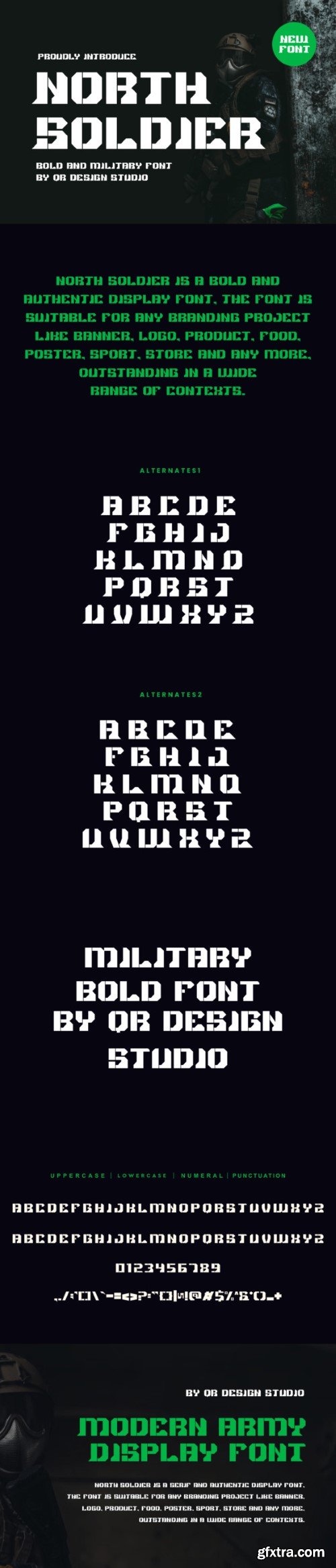
北方士兵字体
North Soldier Font
North Soldier is a bold and dynamic display font that stands tall with confidence. Inspired by rugged strength and modern aesthetics, this typeface delivers a commanding presence. Perfect for headlines, banners, and impactful designs, North Soldier leads the visual charge with its bold strokes and contemporary appeal.